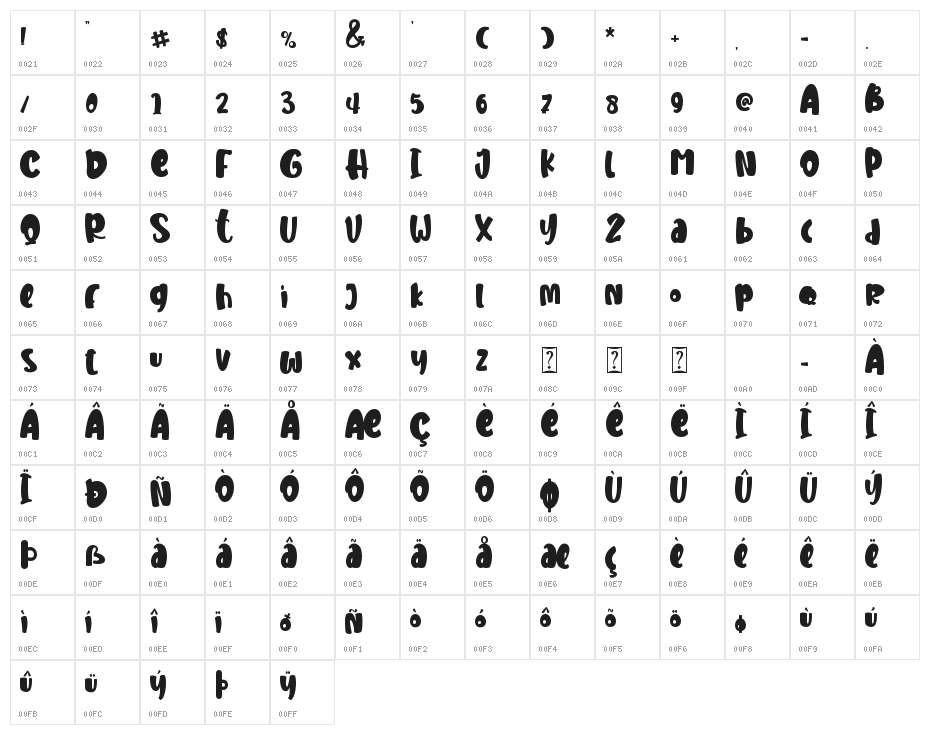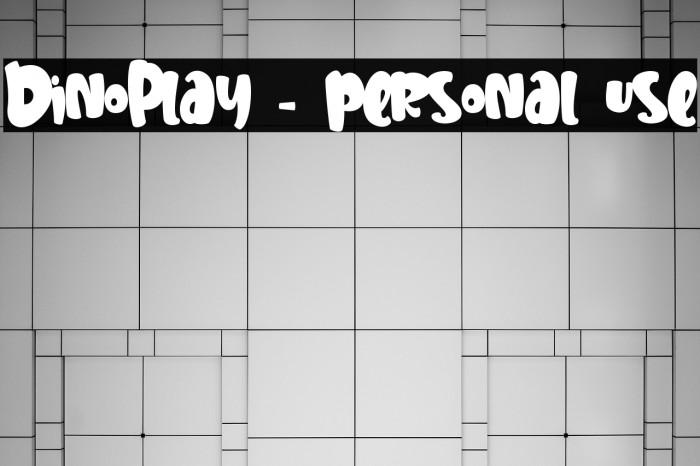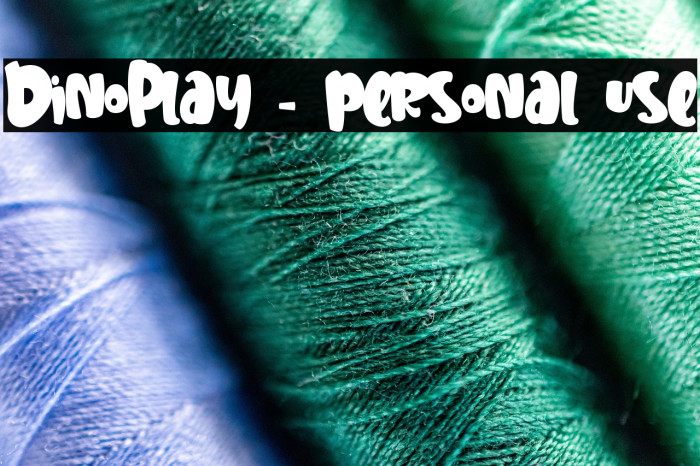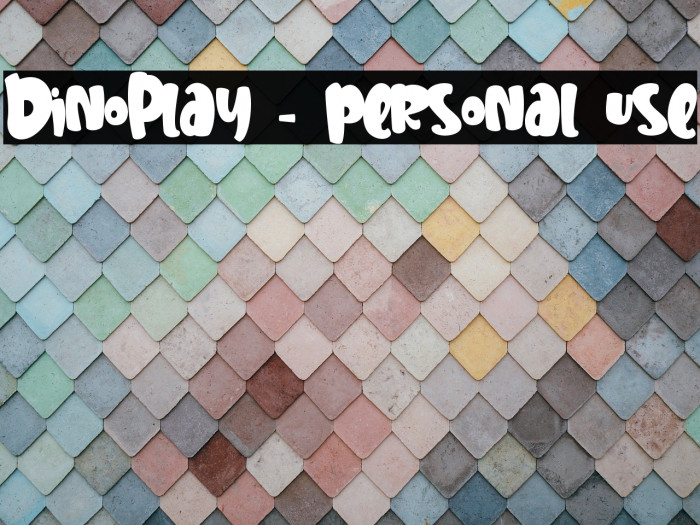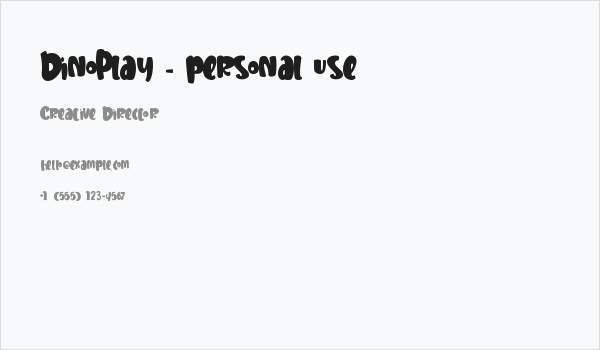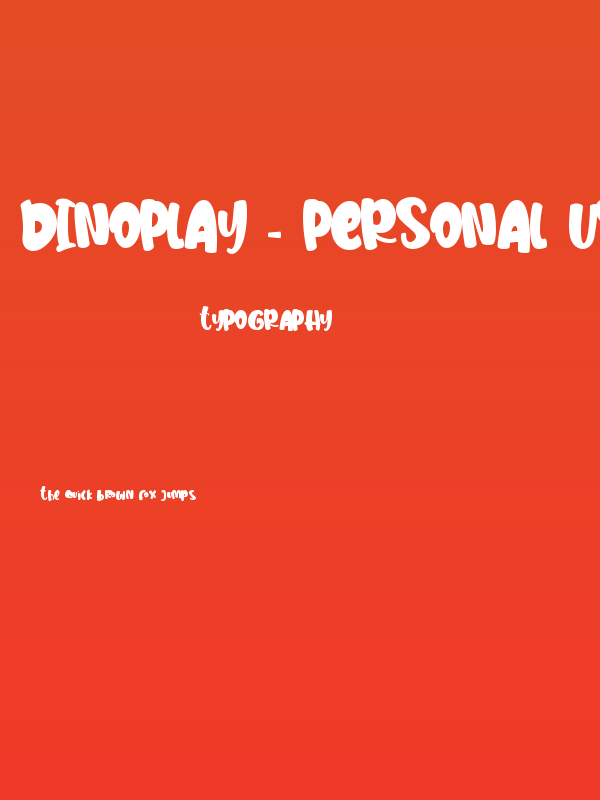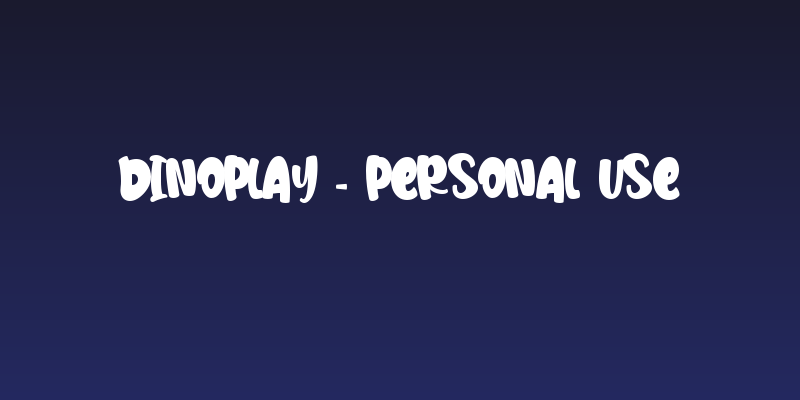
DinoPlay - personal use Font
DinoPlay - personal use Description
This playful and bold font features a whimsical, hand-drawn style with thick, rounded strokes that give it a lively and energetic appearance. The characters are slightly irregular, adding to the casual and fun aesthetic. The uppercase and lowercase letters maintain a consistent style, with a noticeable bounce and flow that enhances its playful nature. The numbers and special characters are equally bold and expressive, making them stand out. This font is perfect for projects that require a touch of creativity and fun, such as children's books, playful branding, or eye-catching headlines.
| Use Case | Headlines, Logos, Children's books |
| Proposed Projects | Ideal for children's books, playful branding, and eye-catching headlines. |